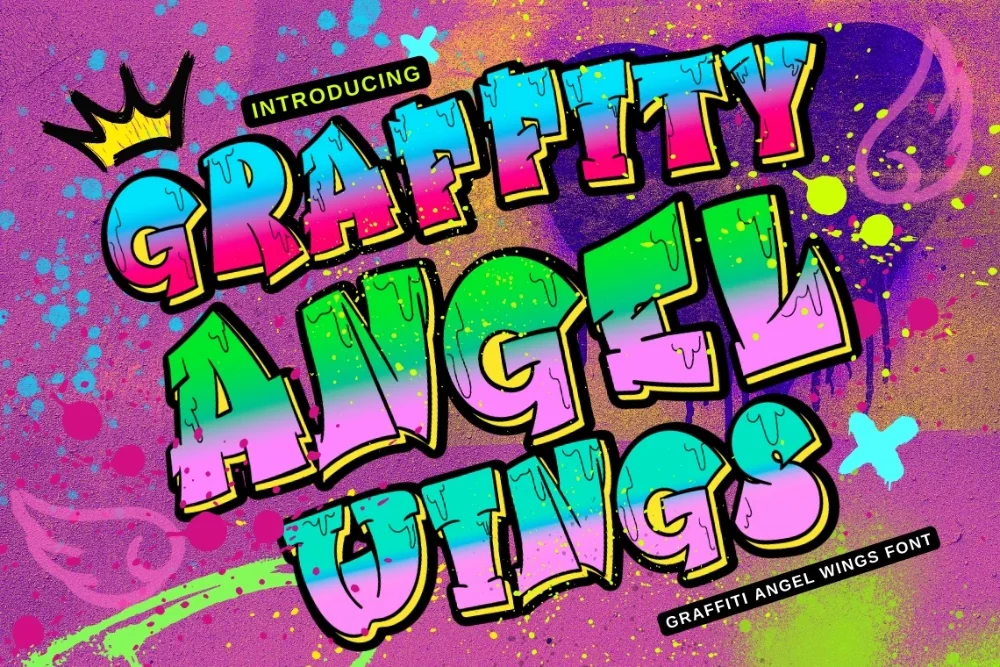
Winged Halo Graffiti Font
There is no shortage of options when you search for a angel wings graffiti, so here is precisely what makes this one different. Bold letters carrying wing and halo details in the classic memorial style. Meaningful as well as decorative.
Wing shapes extend from the sides of key characters and small halo arcs sit above them, drawn in the same weight as the letters so nothing looks pasted on. Best in short phrases and names.
A fitting choice for memorial art, tribute prints, tattoo designs, and faith-based merch.
Give it room. Crowding this kind of alphabet against the edge of a layout wastes the shapes, and a generous margin does more for the design than any extra effect.